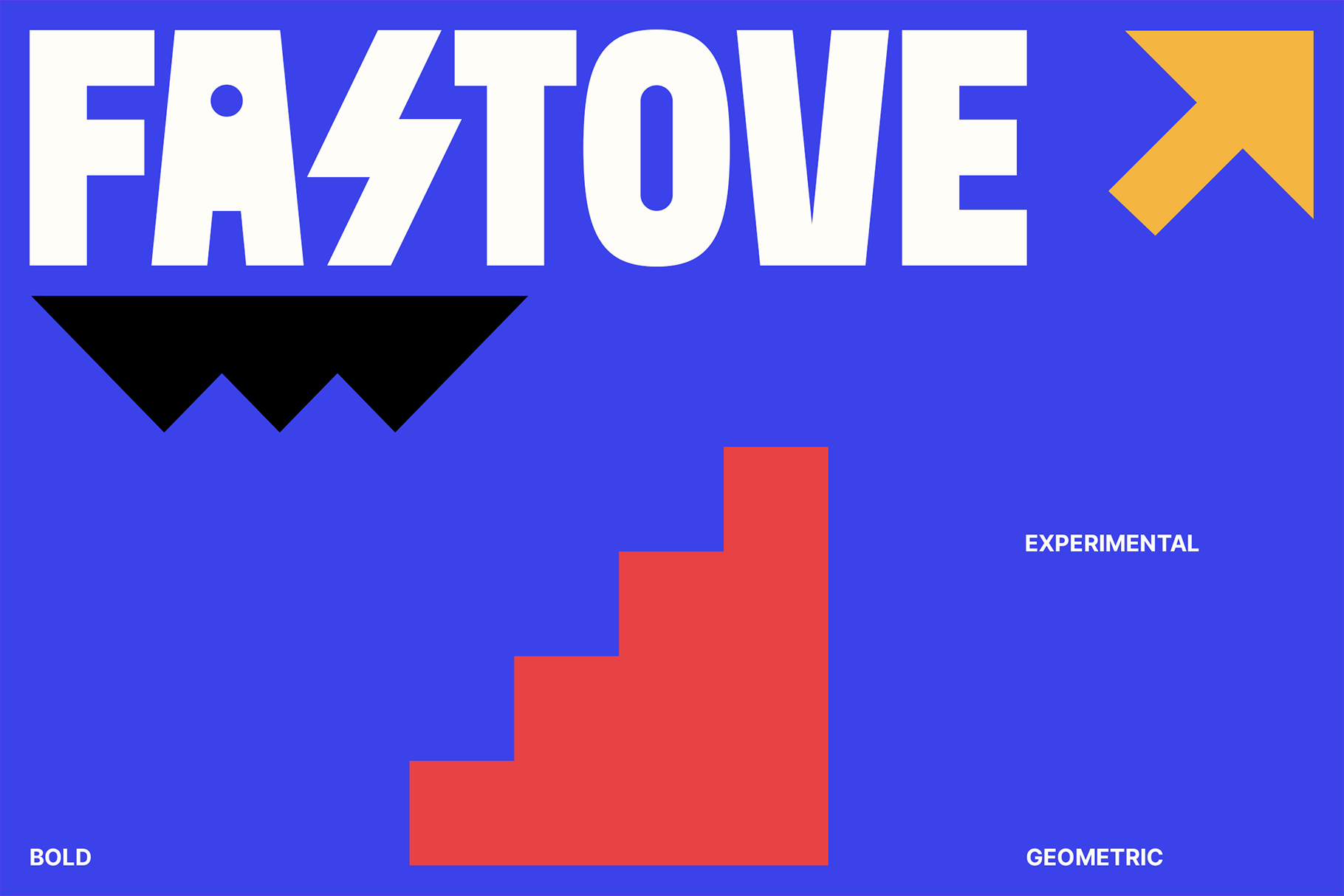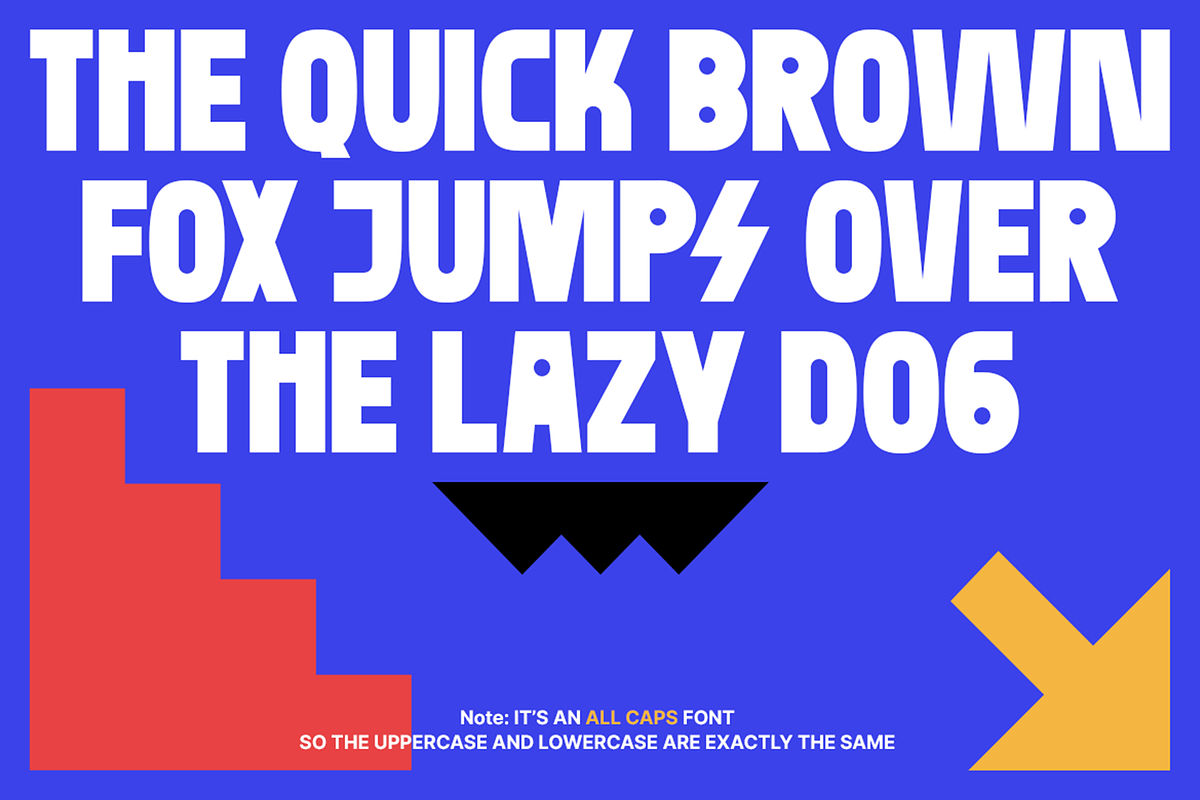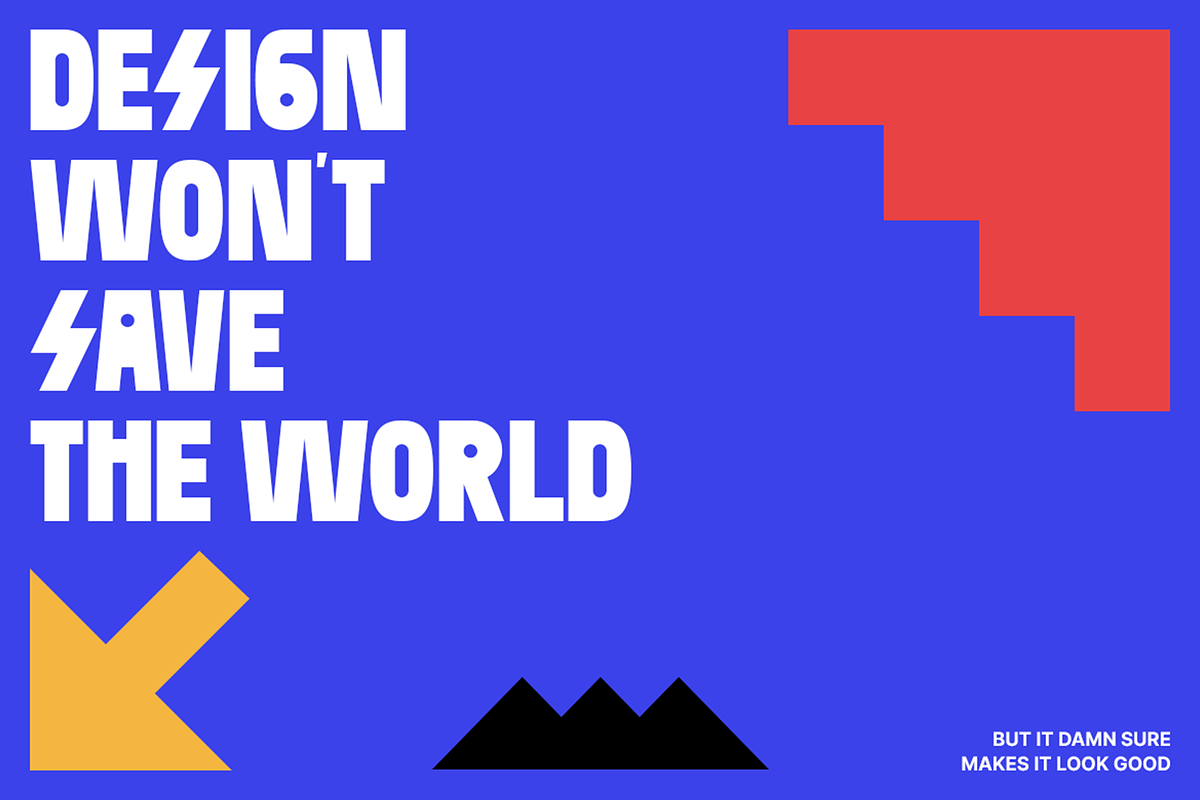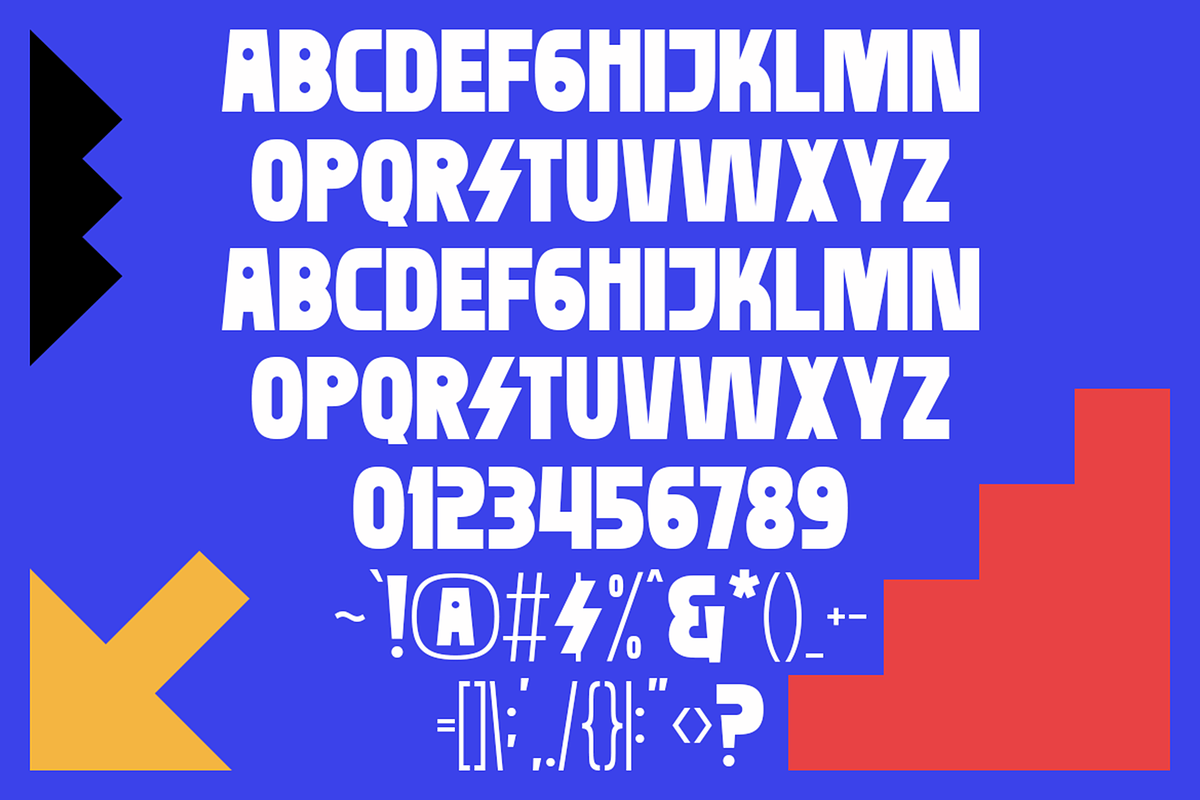
Fastove - Bold Geometric Fonts
Dive into Retro Cool with Fastove!
Meet Fastove, the bold pop geometric font that’s ready to transform your designs. Drawing inspiration from classic retro posters and the playful charm of pop culture, Fastove brings a unique, blocky square aesthetic that’s perfect for any project. Whether you’re designing a poster, creating digital artwork, or branding a new product, Fastove’s vibrant energy and striking design will make your work unforgettable. Try Fastove now and elevate your design game!